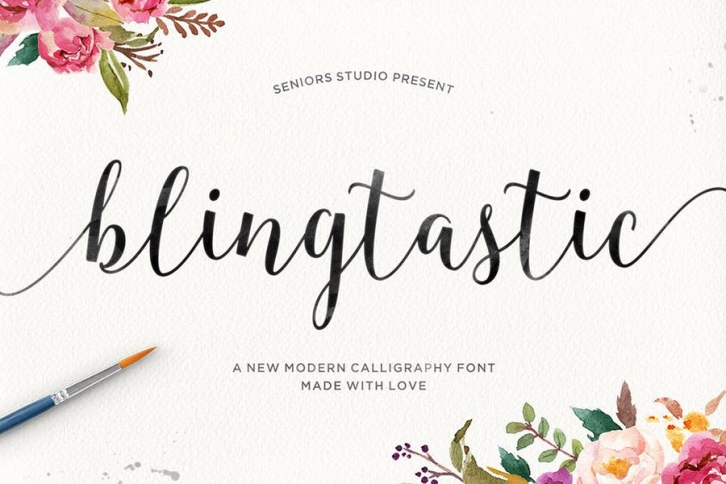
Blingtastic Script is modern & clean calligraphy script, with characters dance along the baseline & elegant touch. Can be used for various purposes.such as logos, wedding invitation, heading, t-shirt, letterhead, signage, lable, news, posters, badges etc. OpenType features with stylistic alternates, ligatures and multiple language support. Which can be accessed using OpenType savvy programs like Adobe Illustrator, Adobe InDesign, CorelDraw X6-X7, Microsoft Word 2010 or later versions. Also supported PUA encoded. Access font characters are compatible with the Silhouette Studio, Cricut Design Space. Simply copy and paste the alternate characters using the Character Map (Windows), Nexus Font (Windows), Font Book (Mac) or a software program such as PopChar (for Windows and Mac).